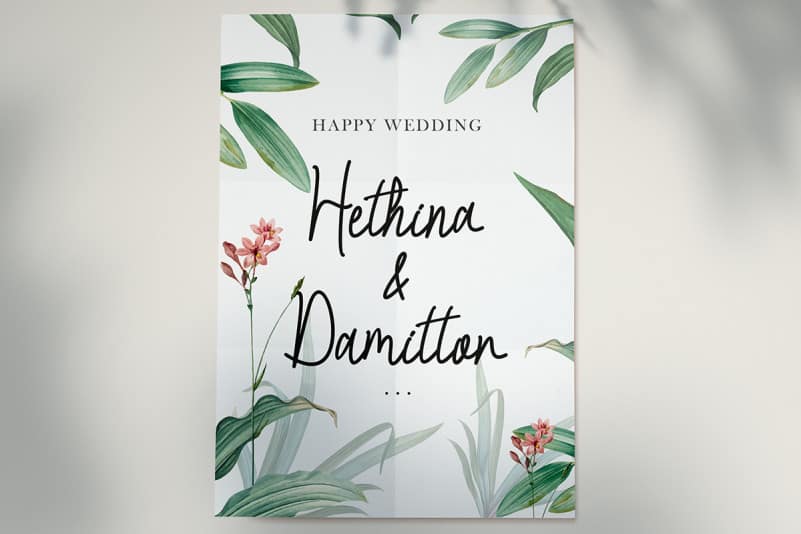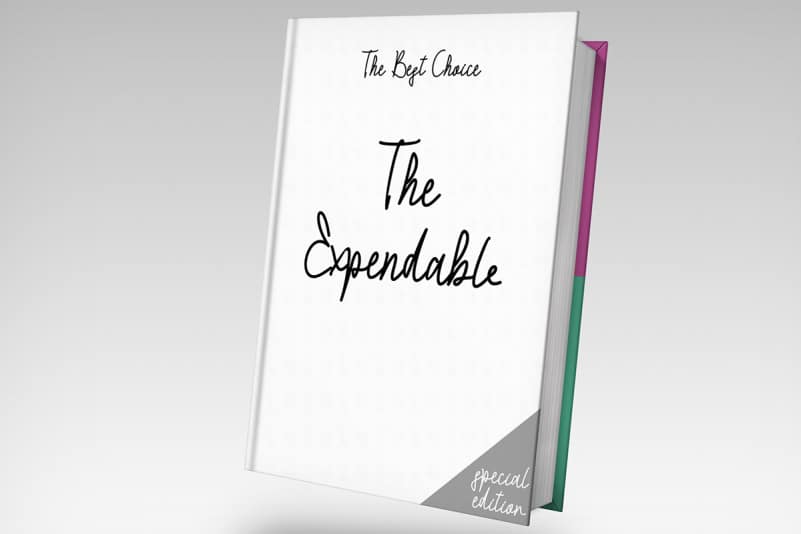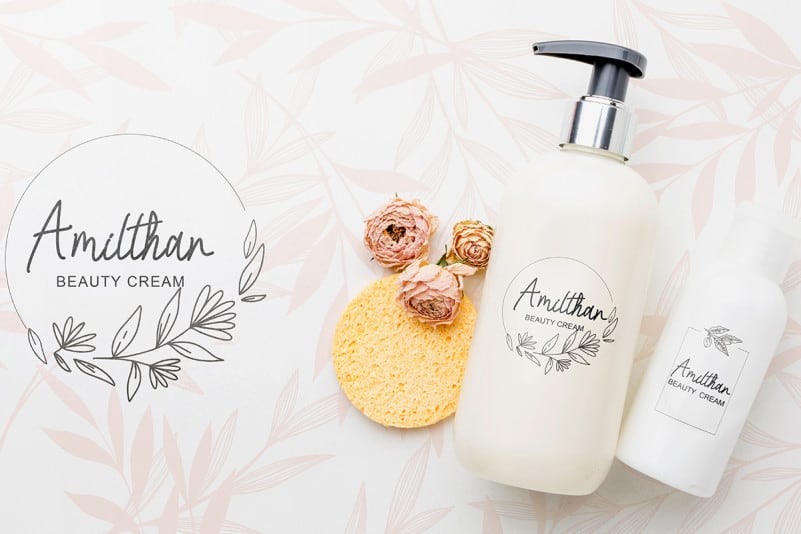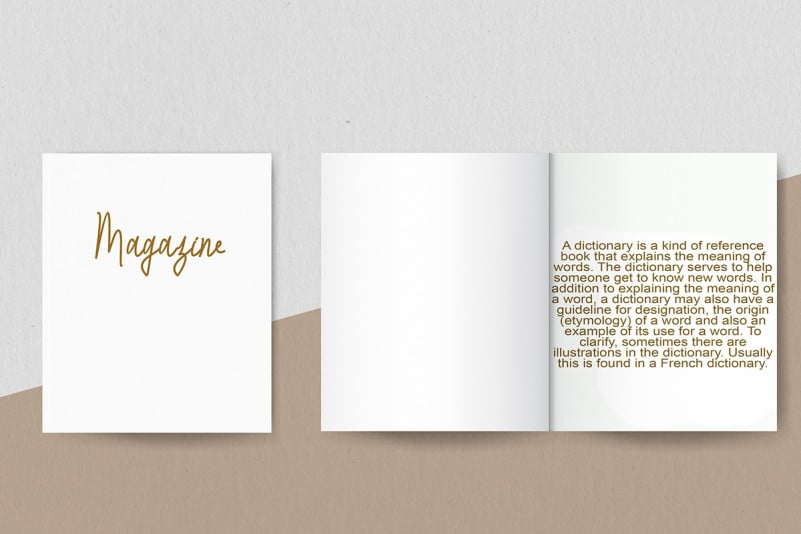
High Moon Handwritten Font
This font is called “High Moon Handwritten Font” which is written in a monoline script style. This font is very unique and beautiful, so it can be used in all your work. This font can be used for weddings, birthdays, summer, spring, earth day, writing letters, product promotions, updates on social media, logos, branding, banners, prints, posters, and more. This font is very easy to use and made simple and easy for consumers.